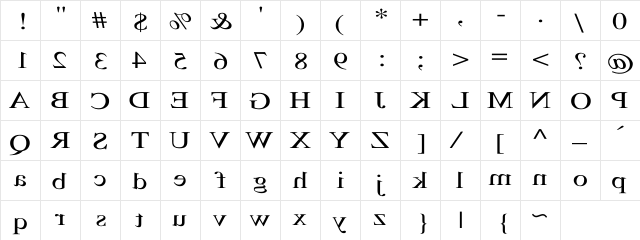
RSTimesMirror Wd Regular
RSTimesMirror Wd takes a measured approach to typography — its balanced proportions and neutral character make it a reliable workhorse for both digital and print work.